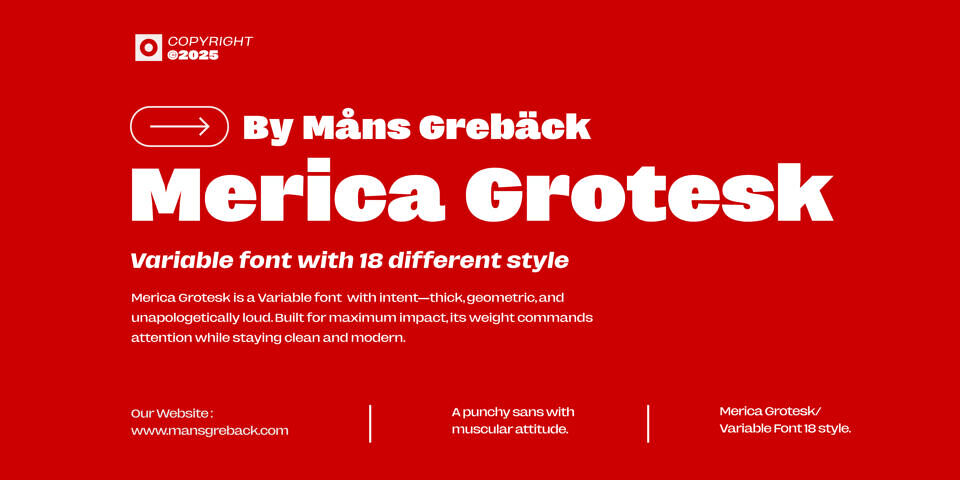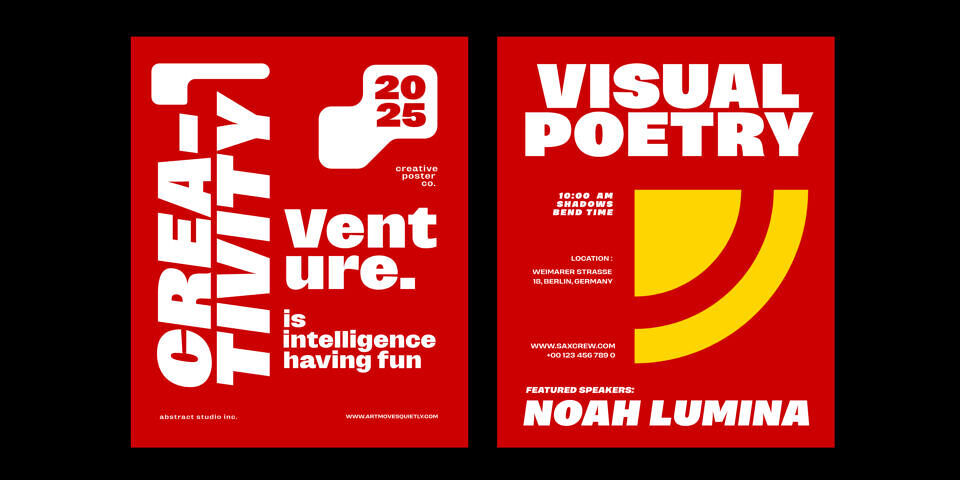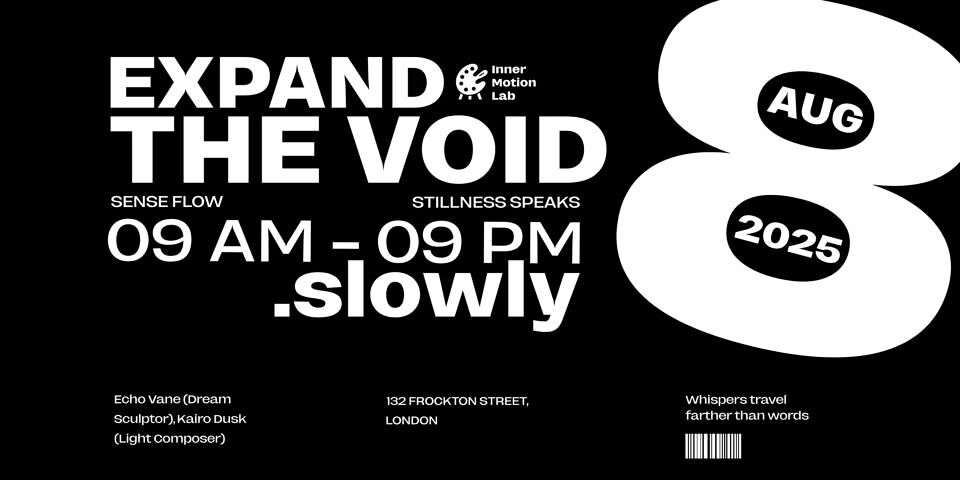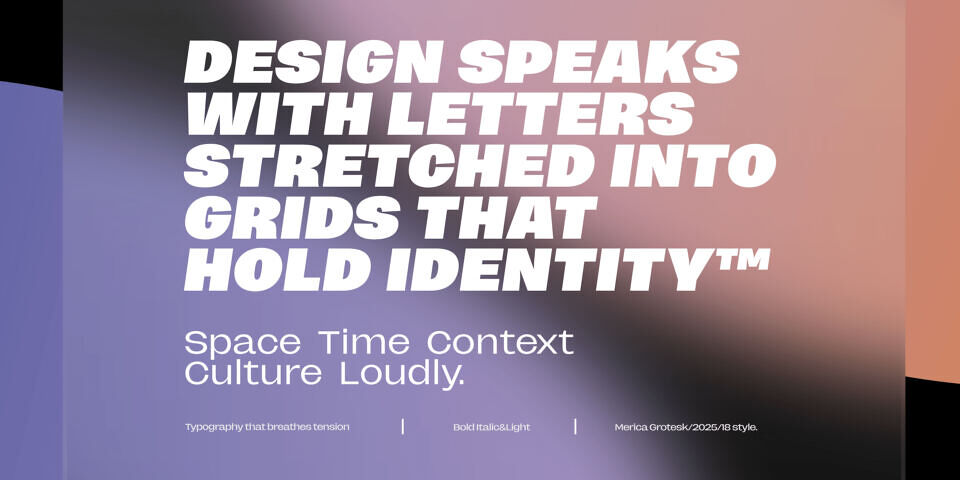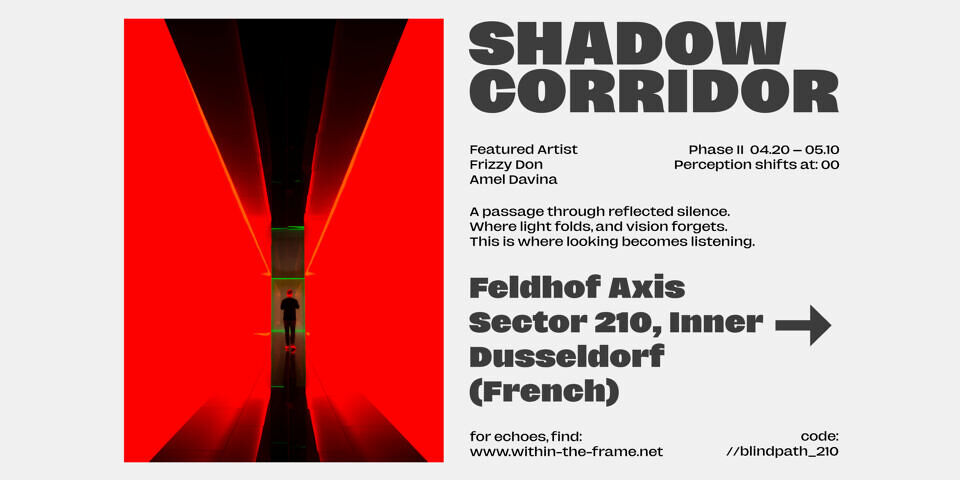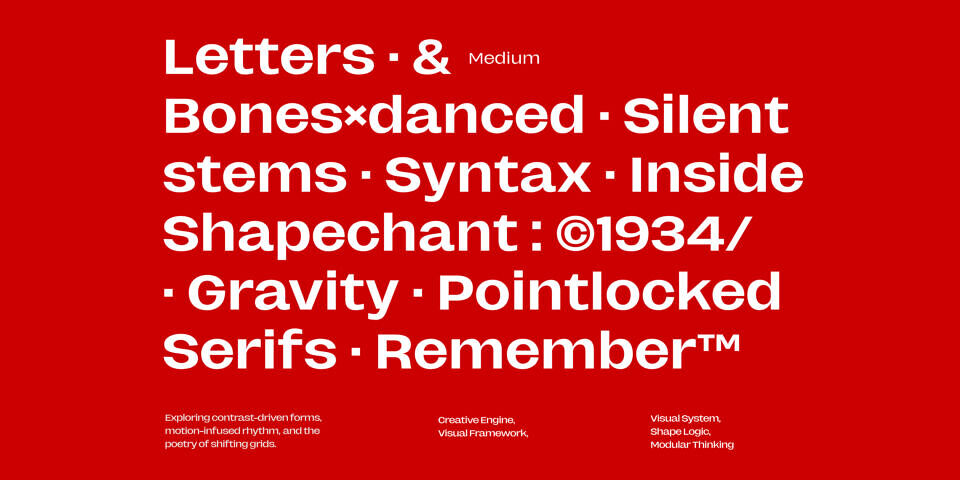
Merica Grotesk is a muscular sans-serif with an unapologetic presence. Its bold, geometric construction speaks with confidence, designed to command attention without losing its modern sharpness. The thick, even weight makes it ideal for impactful headlines, branding, and messages that must be seen as much as read.
It balances brute strength with clarity—its clean lines and proportional design mean that even at its heaviest, the text remains readable and aesthetically precise. In lighter weights, it carries a restrained elegance, allowing the design to adapt between assertive and understated tones.